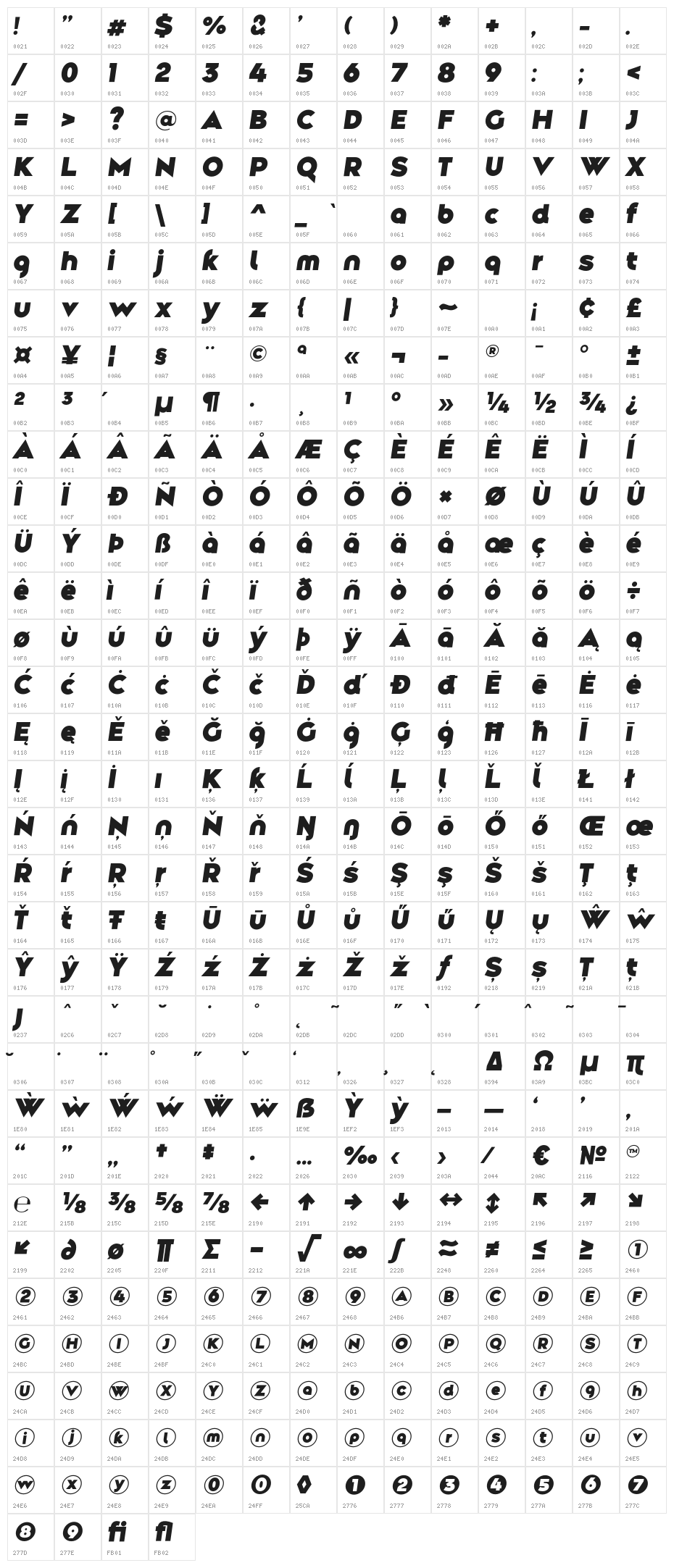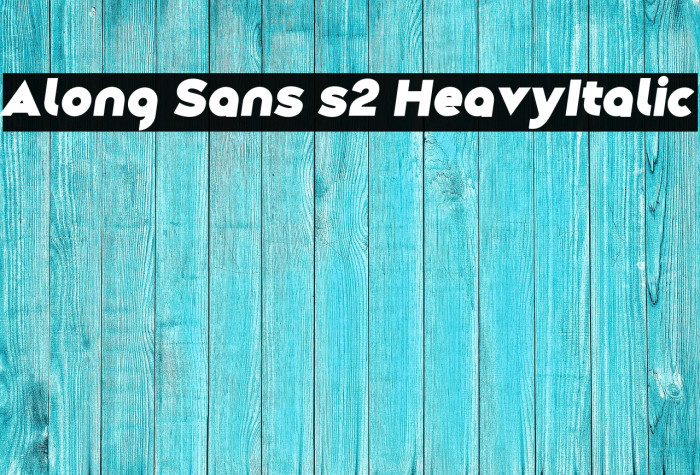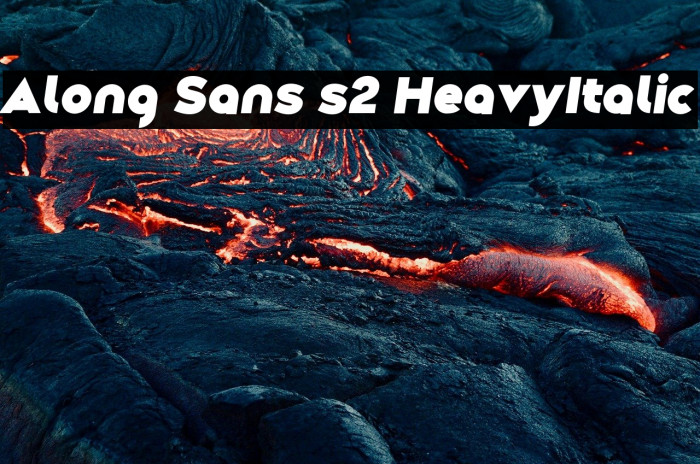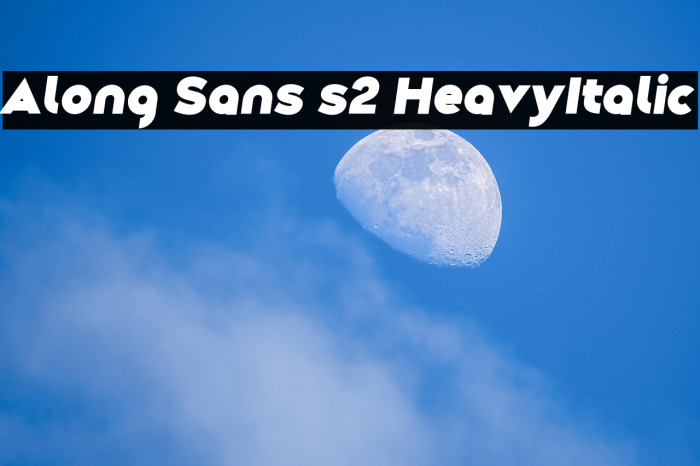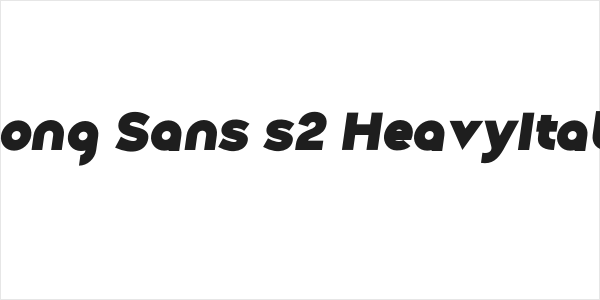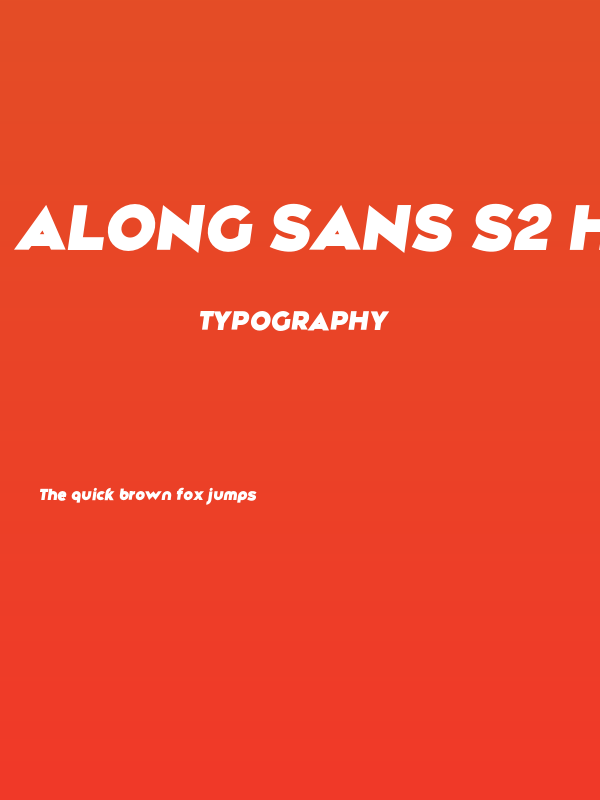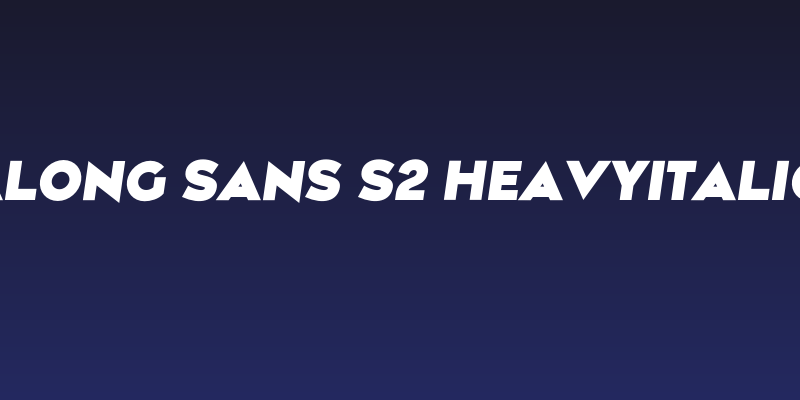
Along Sans s2 HeavyItalic Font
Along Sans s2 HeavyItalic Description
This font features a bold and dynamic style with a strong italic slant, giving it a sense of movement and energy. The characters are thick and heavy, providing a commanding presence. The uppercase and lowercase letters maintain a consistent weight, ensuring readability while adding a modern flair. The numbers are equally bold, making them stand out effectively. Special characters are designed with the same boldness, ensuring uniformity across all glyphs. The overall design is clean and impactful, suitable for making a strong visual statement.